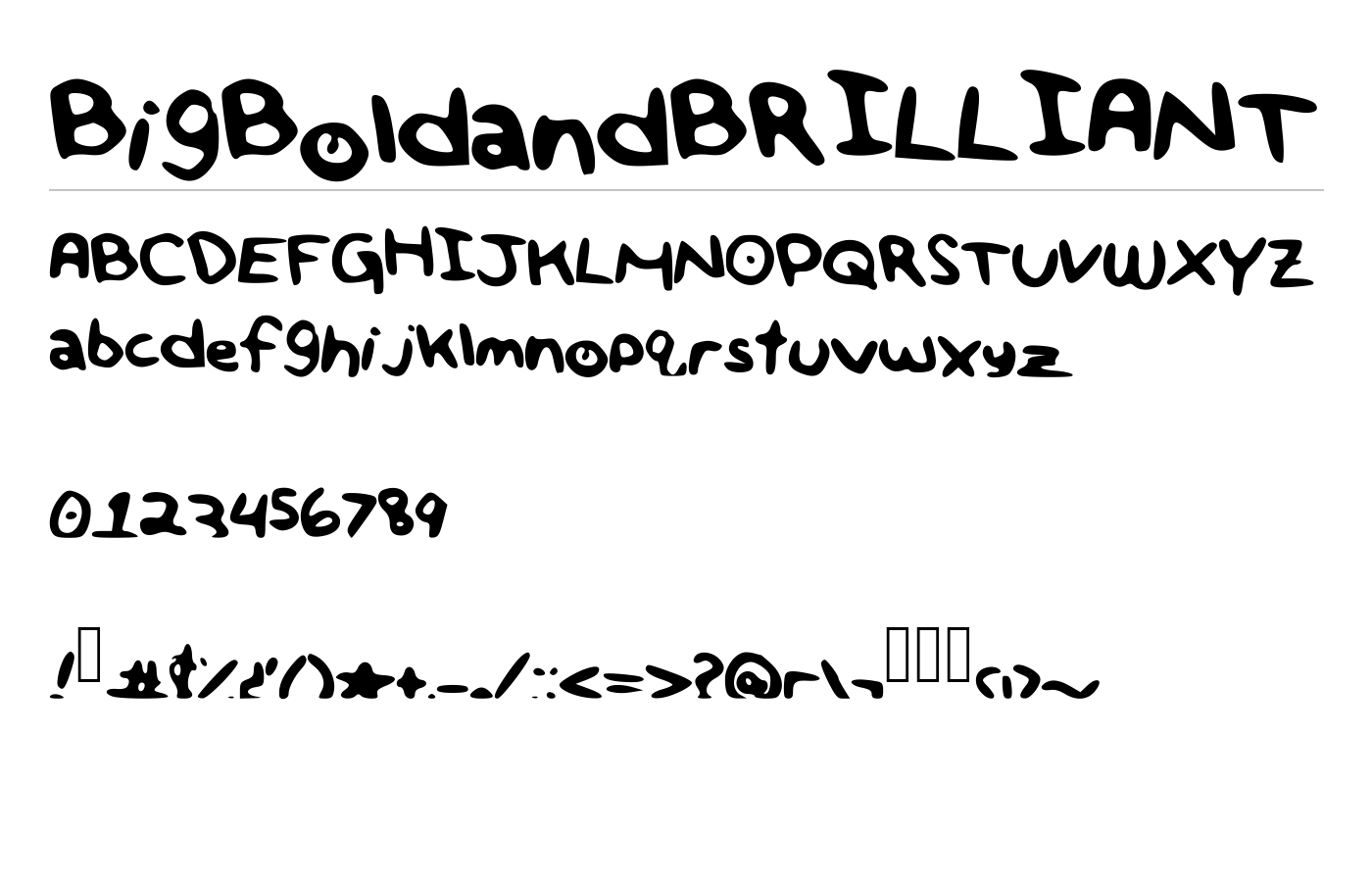
BigBoldandBRILLIANT is a playful, hand-drawn sans serif font with a bold and fun personality. Its irregular, organic letter shapes and casual strokes make it ideal for projects that want to convey creativity and friendliness, such as children’s books, informal branding, or quirky posters. This font stands out with its lively charm, making it perfect for headlines or display use where an engaging and approachable tone is desired.
BigBoldandBRILLIANT Font